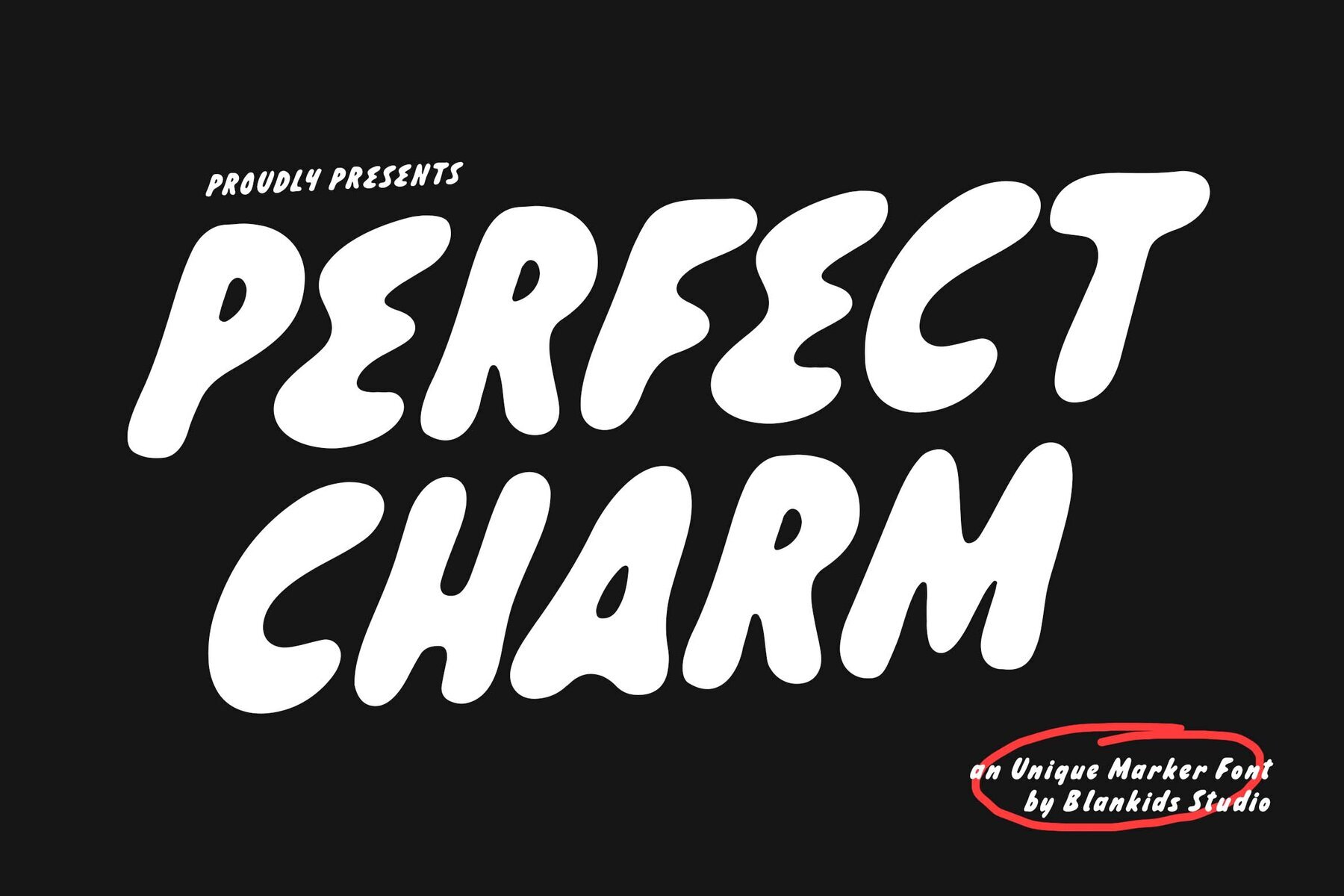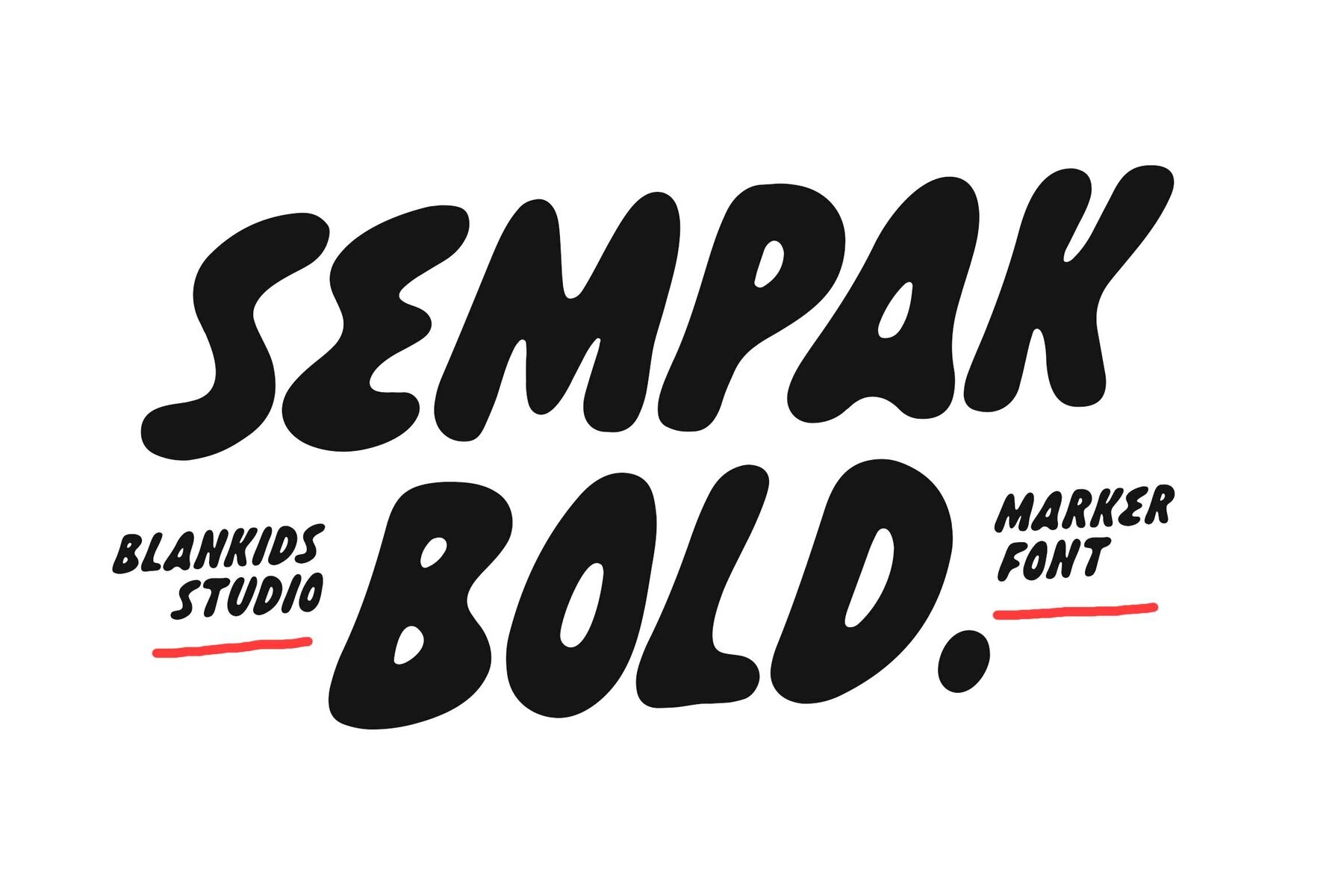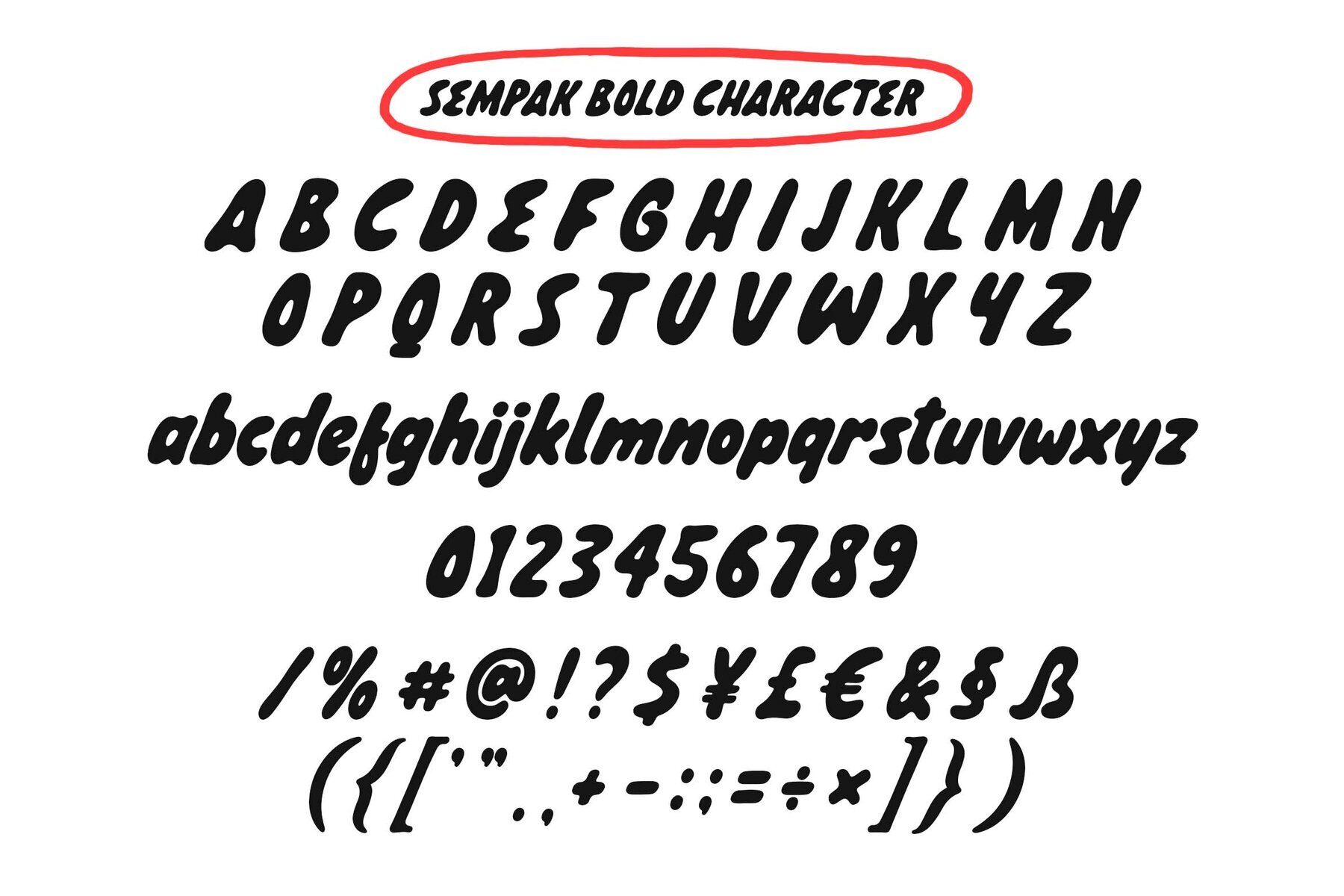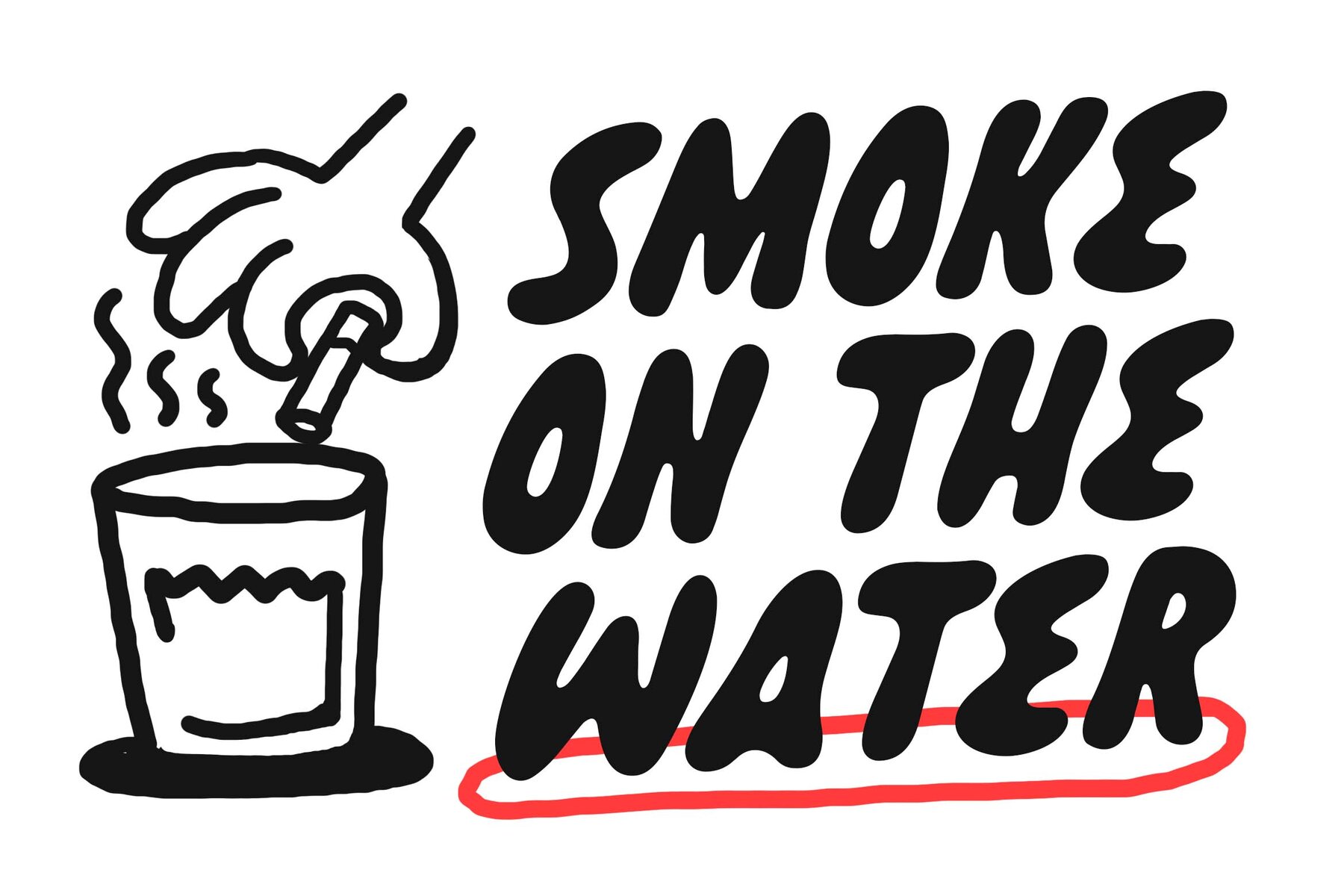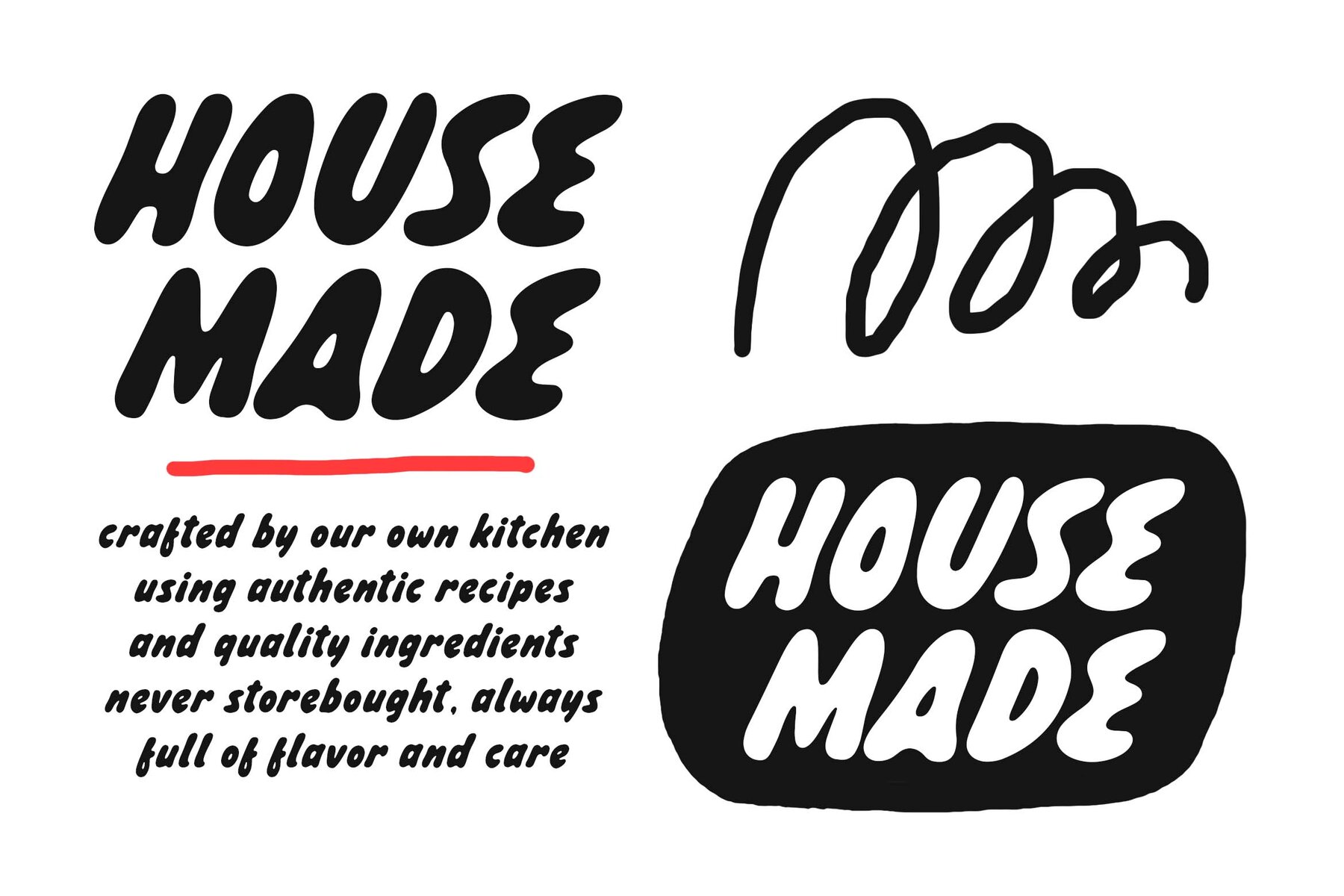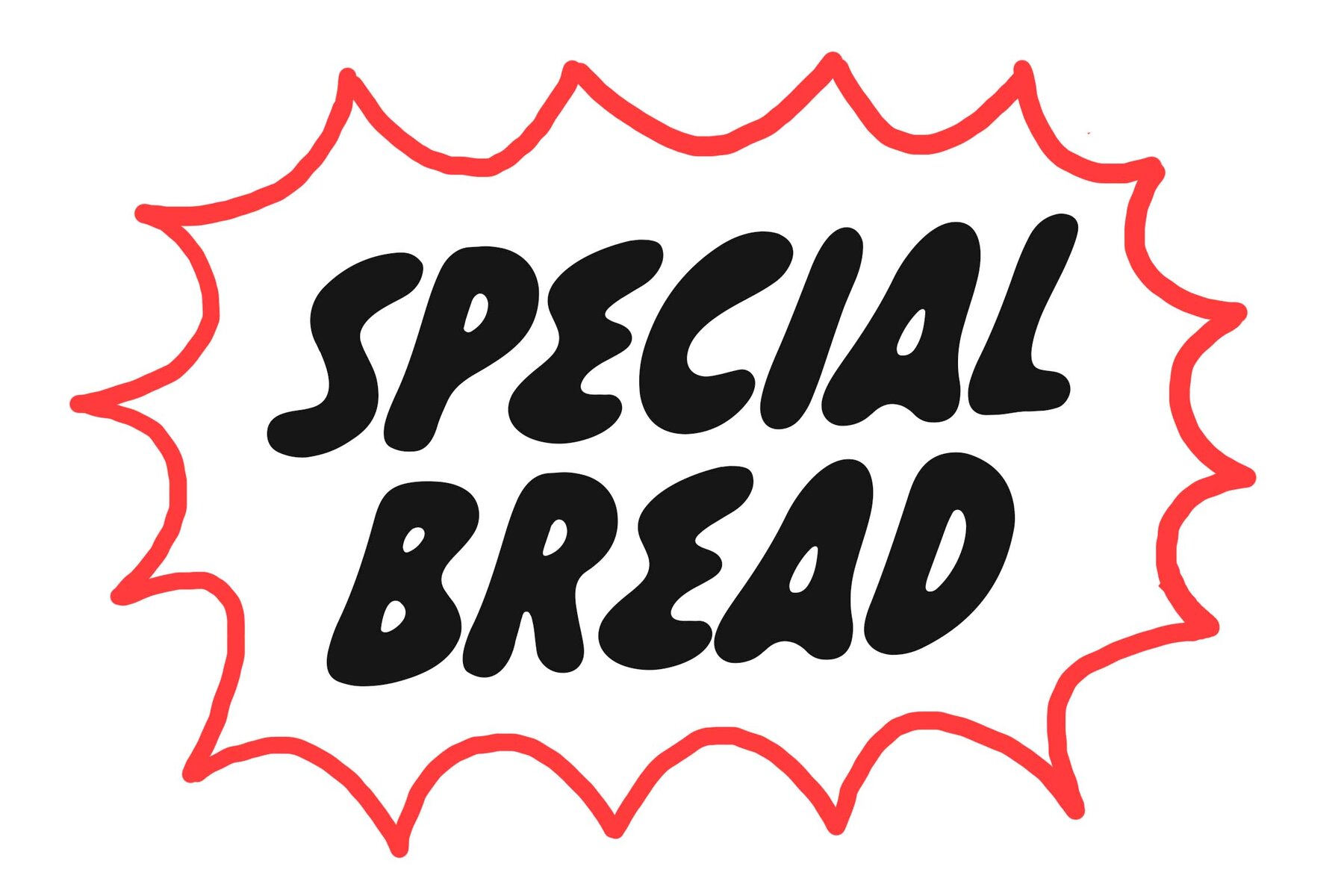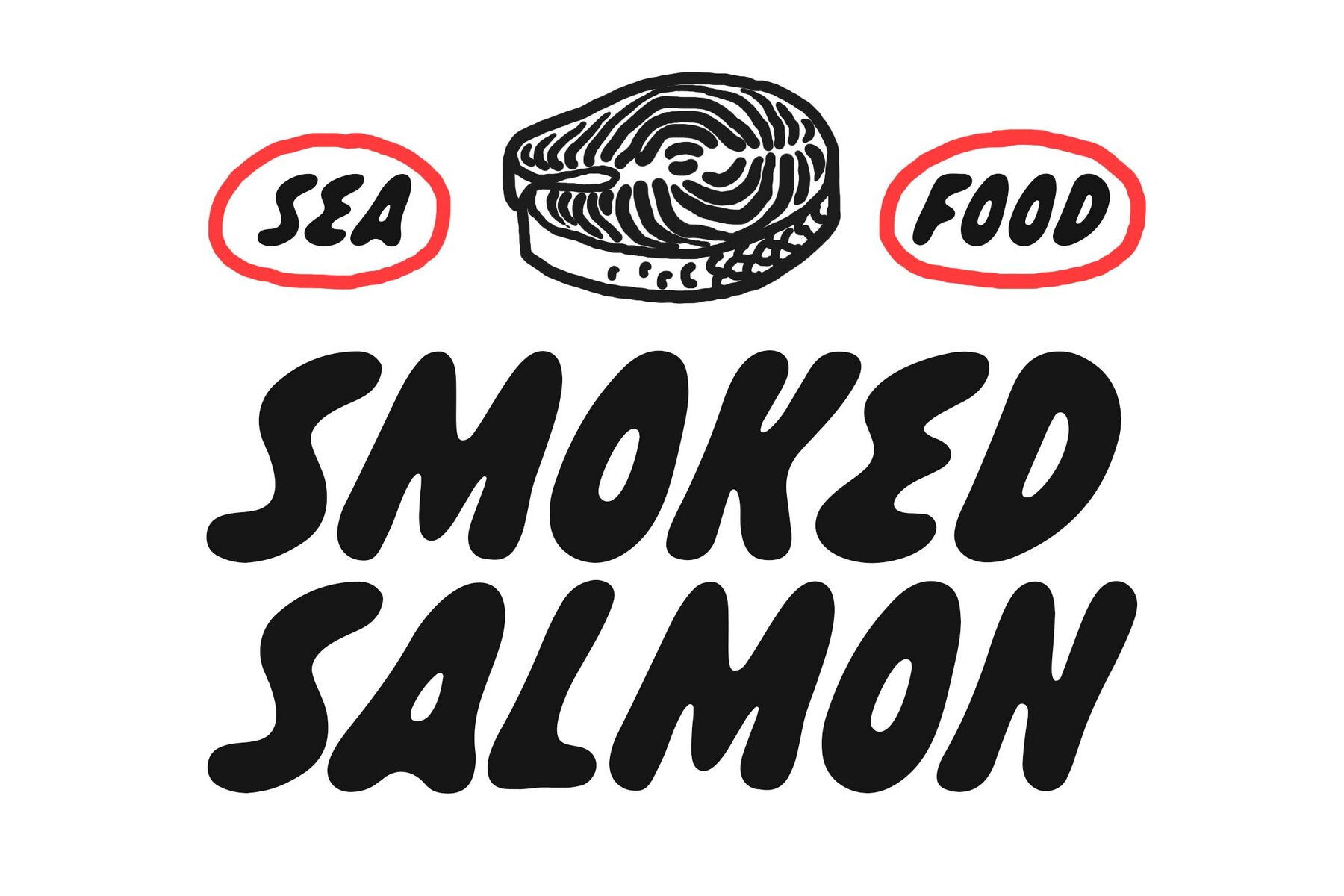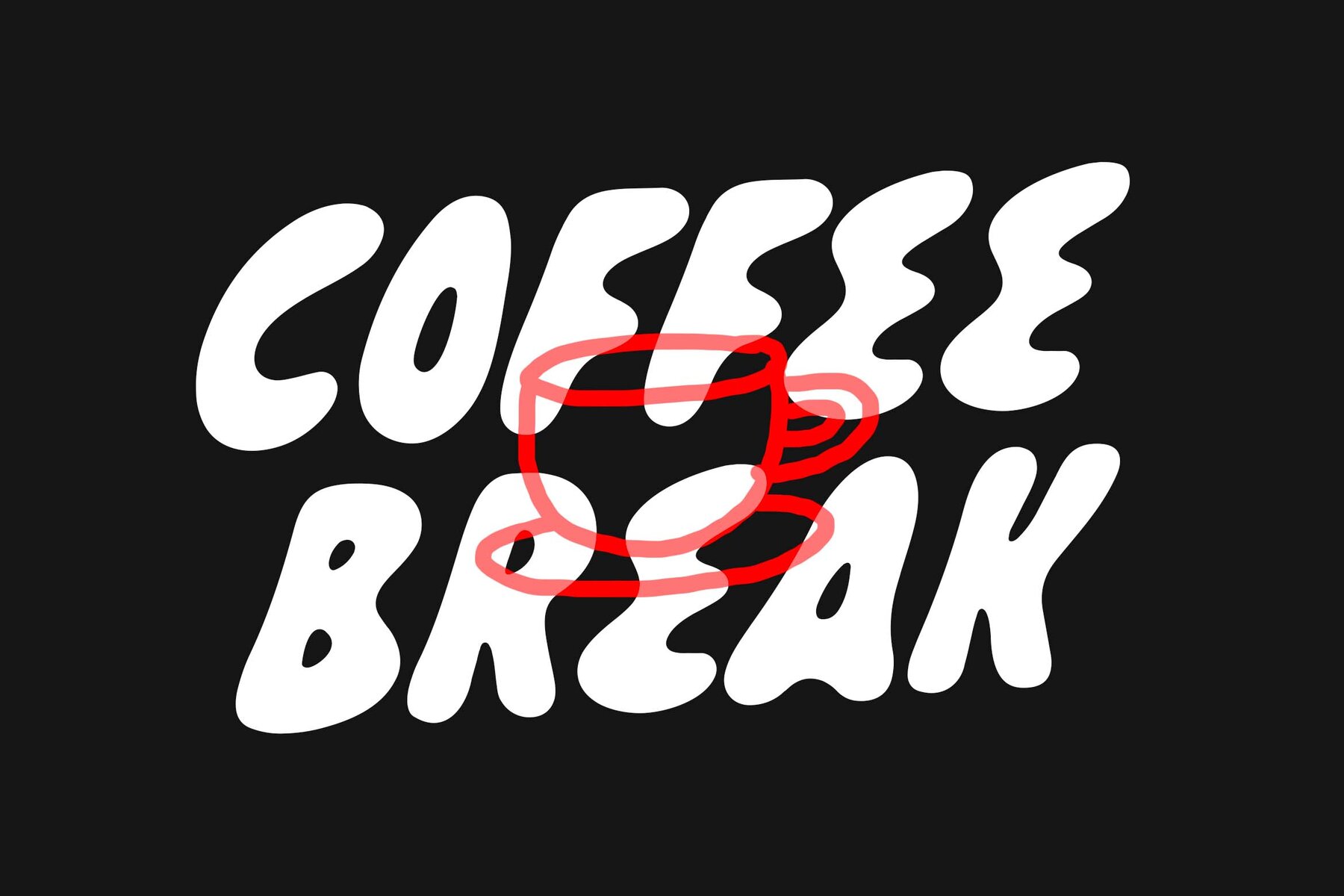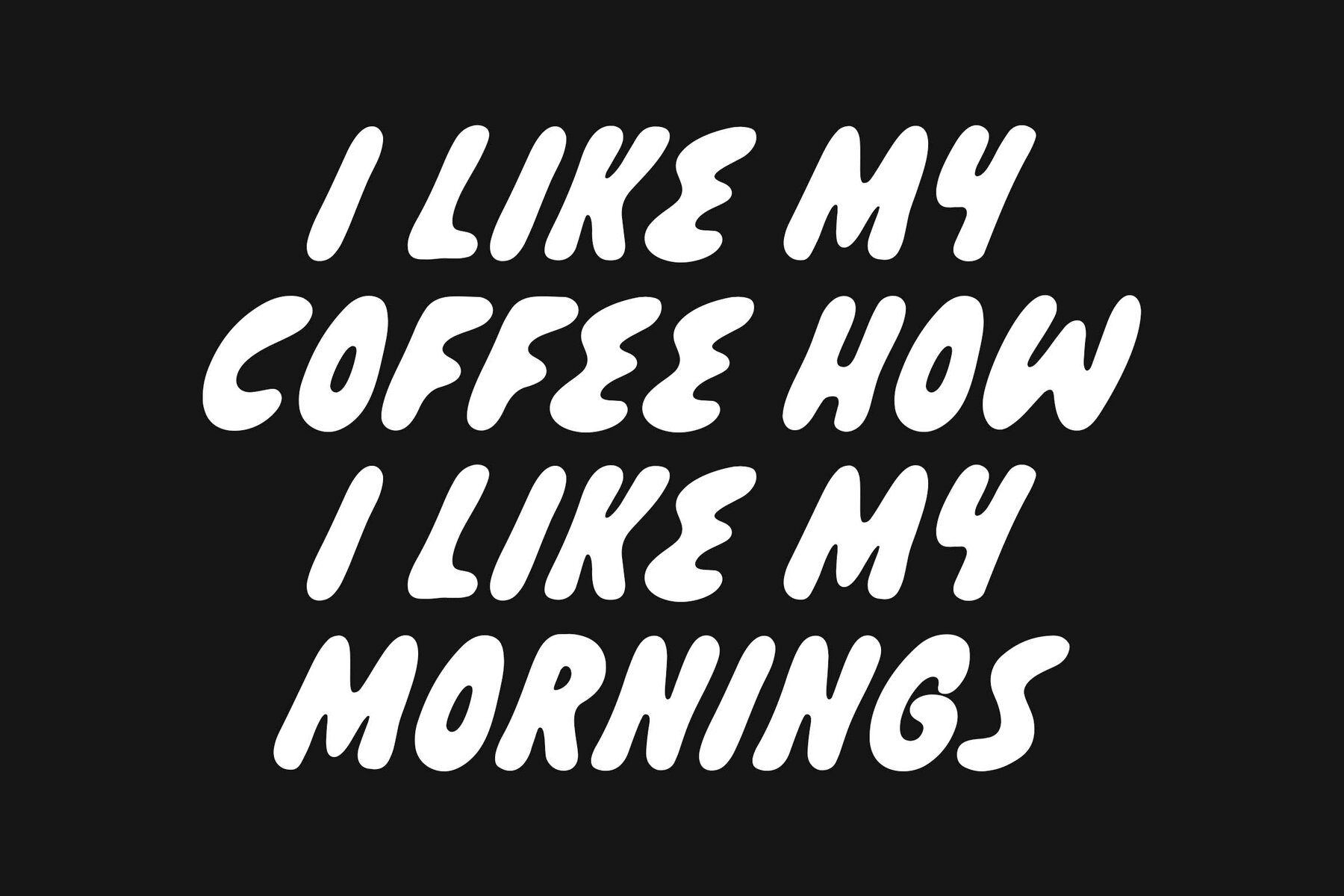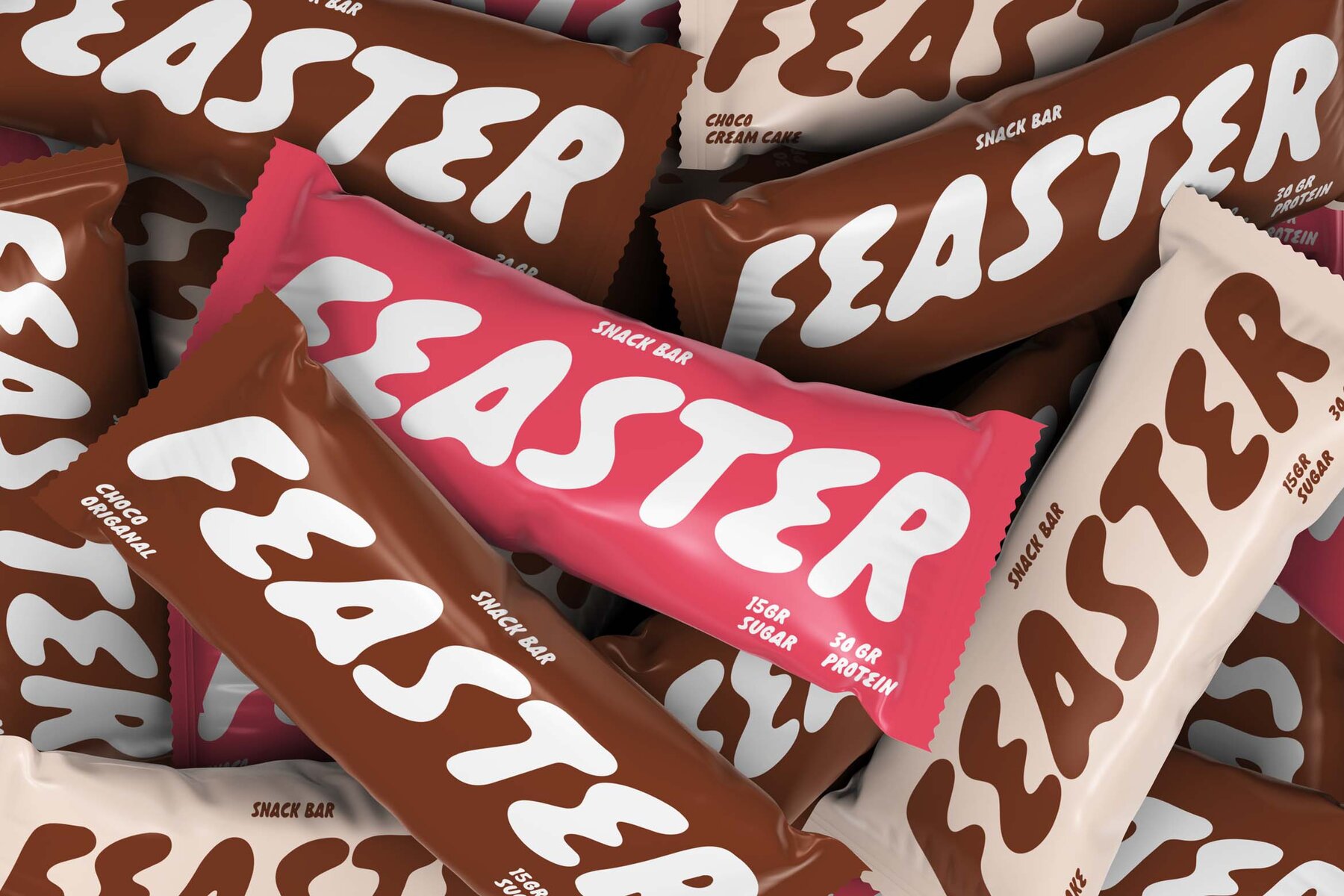
Perfect Charm Font
Perfect Charm Regular
Introduce a lively and bold personality to your design with Perfect Charm, a hand-drawn marker font that exudes confidence and creativity. The font's smooth curves and rounded shapes enliven every word, making it ideal for branding, packaging, posters, social media, or any project that requires a friendly yet striking appearance. Whether creating a playful logo, a catchy headline, or vibrant merchandise, Perfect Charm provides the right touch of character to ensure your message commands attention.Perfect Charm: Hand-Drawn Elegance Meets Confidence